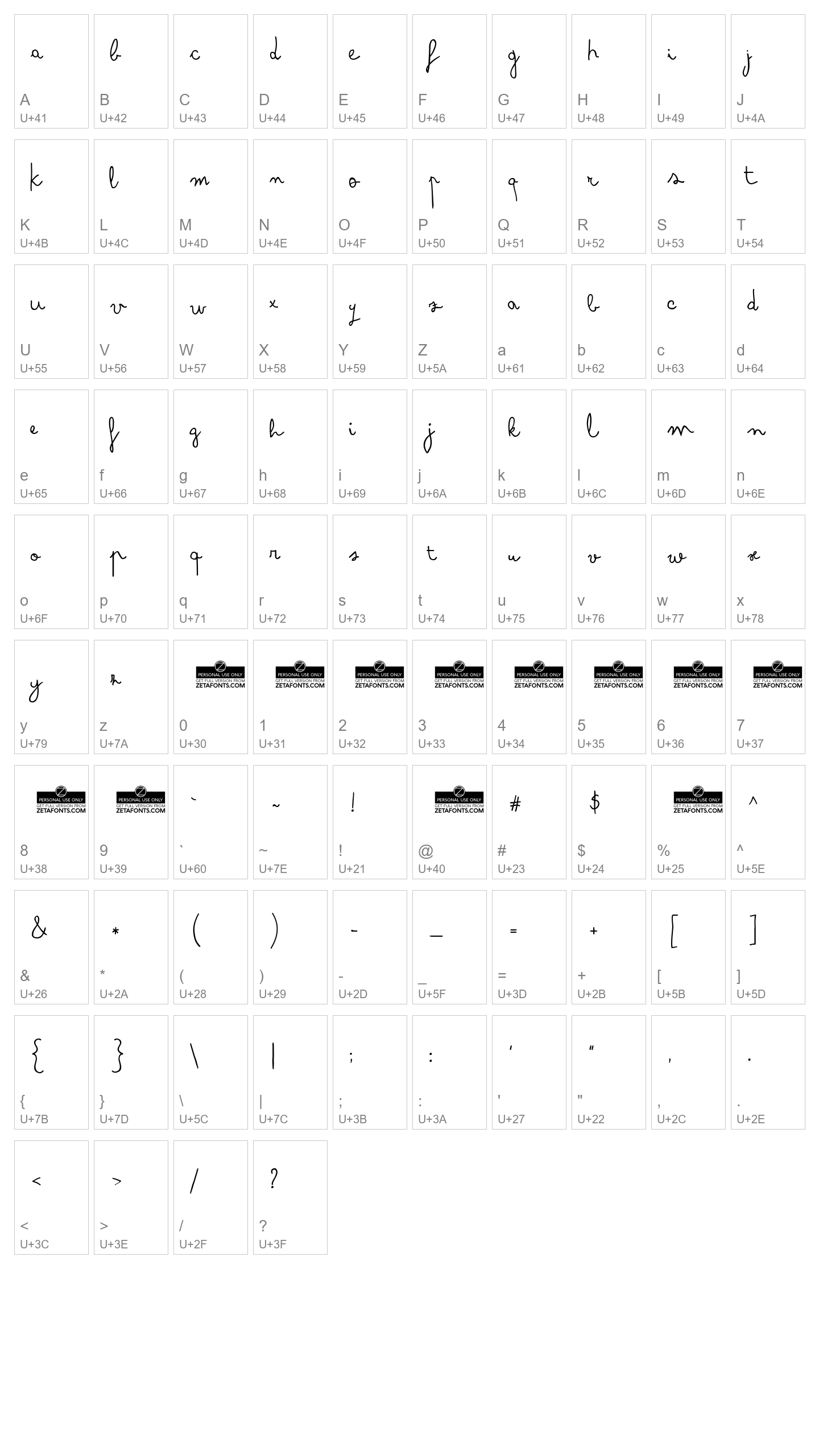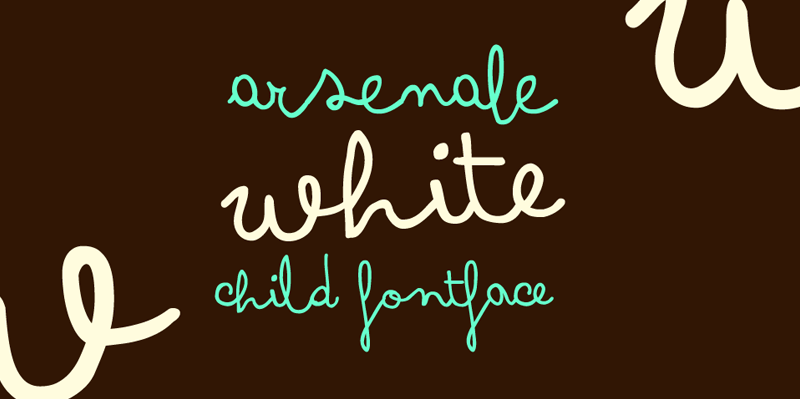
Arsenale White
Arsenale white is a script font born by the collaboration of different graphic designers.
This font recalls the handwriting of a child. It is perfect to be used for graphics with a childish and playful mood.